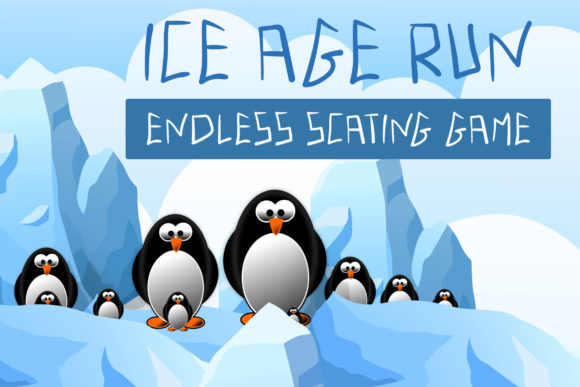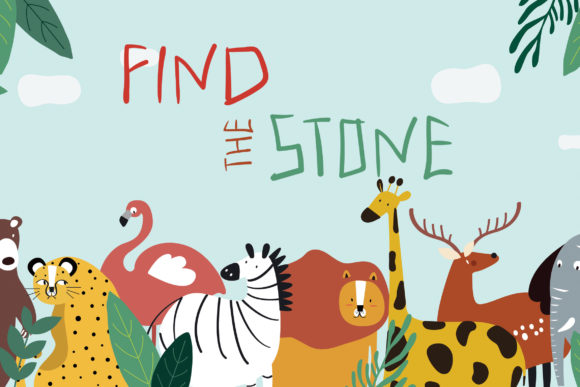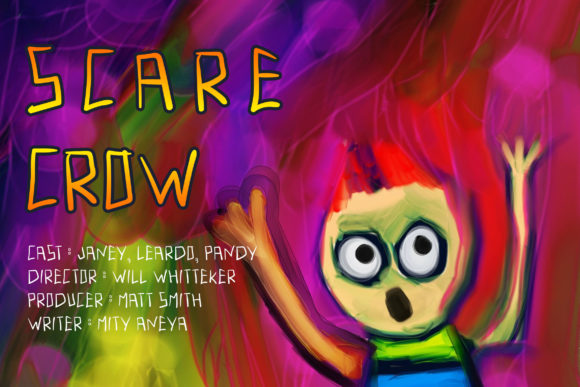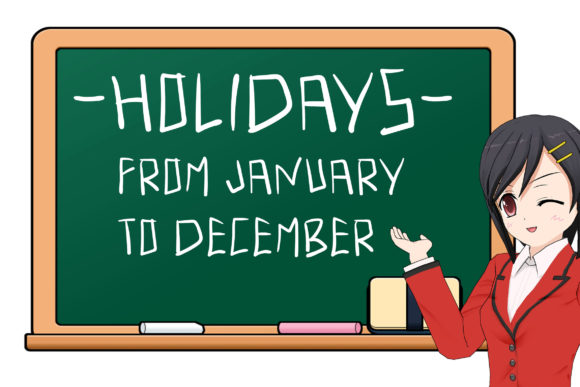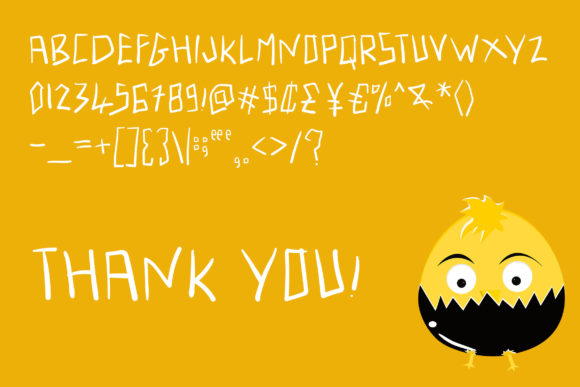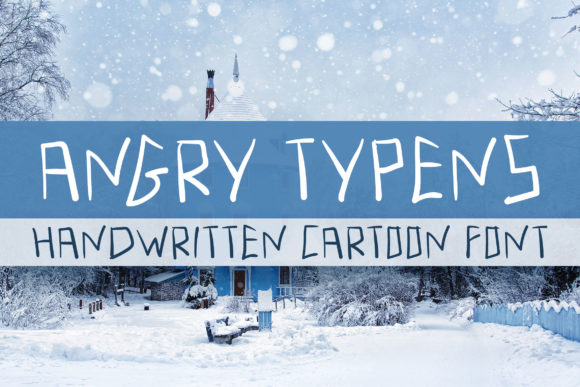
The Ultimate Guide to Angry Typens Font: Adding a Comic Twist to Your Designs
Have you ever been in the middle of a design project, and suddenly, you’re stuck on finding the perfect font? I recall a recent experience where a client asked for a bold, playful, and comic-inspired font for their branding project. After hours of searching, I stumbled upon Angry Typens, and it completely transformed my design. In this article, we’ll dive into the world of Angry Typens, exploring its features, usage, and alternatives.
What is Angry Typens Font?
Angry Typens is an incredibly bold and fun handwritten font, inspired by comics. It adds a unique spark to any design project, making it perfect for designers, crafters, and creative hobbyists. This font is sure to make your designs pop with its energetic and playful vibe.
My Honest Review of Angry Typens
Here’s what I love about Angry Typens:
- ✨ Bold and eye-catching: Angry Typens is perfect for creating attention-grabbing headlines and titles.
- ✅ Easy to read: Despite its bold nature, the font remains clear and legible, even at smaller sizes.
- 🎨 Highly versatile: Angry Typens can be used for a wide range of design projects, from posters and flyers to social media graphics and branding.
However, I did notice a few quirks:
- 🤔 Limited use for body text: Due to its bold nature, Angry Typens might not be the best choice for lengthy body text.
- ⚠️ Some characters may appear distorted: When using certain characters or diacritical marks, the font might appear slightly distorted.
The Story Behind Angry Typens
Angry Typens was created by a team of designers who wanted to capture the essence of comic books in a font. Inspired by the bold, playful typography found in comics, they crafted a font that would bring a unique spark to any design project.
| Font Name | Angry Typens Font |
| Author | Dasagani |
| What is Angry Typens font best used for? | Angry Typens is perfect for creating attention-grabbing headlines, titles, and short text. |
| Is Angry Typens suitable for body text? | No, Angry Typens is not recommended for lengthy body text due to its bold nature. |
| Is Angry Typens available in different styles? | Yes, Angry Typens comes with various OpenType features, including stylistic alternates and glyphs. |